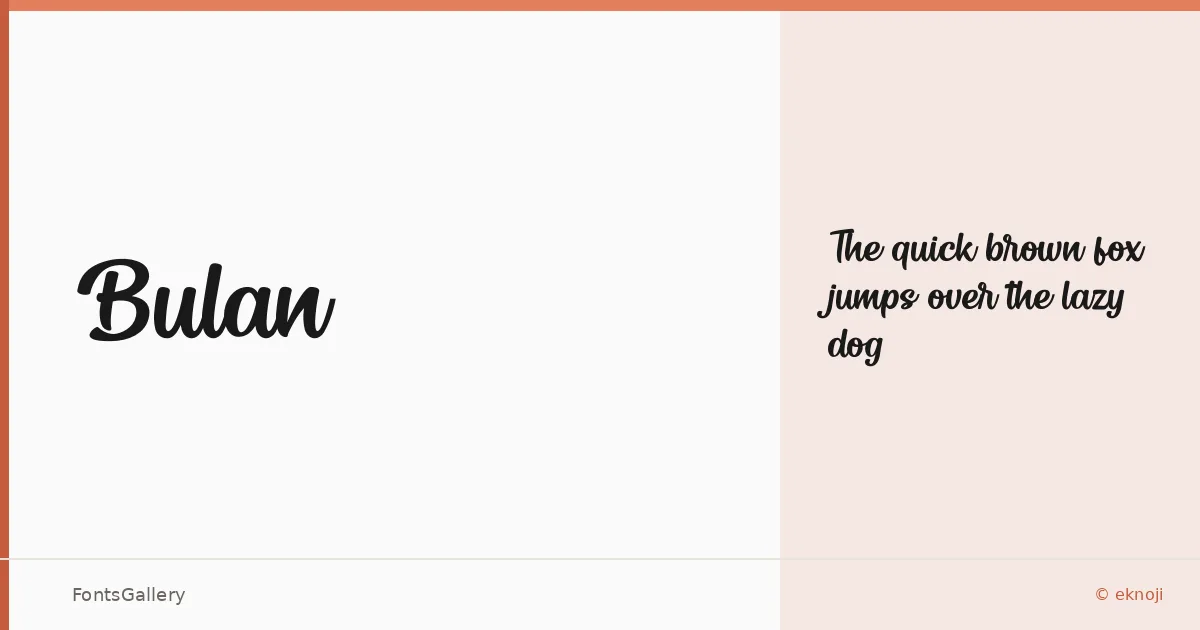
About Bulan Font
There is a lightness to this script — the kind of flowing, unhurried rhythm that reads as both confident and warm at once. Bulan comes from the eknoji studio, designed by EKNOJI, and it arrives as a single Regular weight in OTF format. The letterforms carry a romantic lean with enough modern shaping in the connections to keep them from feeling overly traditional.
This is an elegant, playful script that sits comfortably at the intersection of modern calligraphy and contemporary branding sensibility. The mood shifts depending on the context — romantic on a wedding invitation, lively on a social media graphic — but the underlying character stays consistent. At display sizes, the strokes have presence without heaviness, and the Latin coverage handles the standard range cleanly.
The face earns its place in invitation cards, greeting cards, logo lockups, and branding work where a script needs to carry warmth without tipping into sentimentality. It pairs well against the structure of Helvetica or the editorial weight of Canela, and holds its own alongside the geometric rationality of Abrade or Anglecia Pro — as well as the refined tones of ABC Arizona.